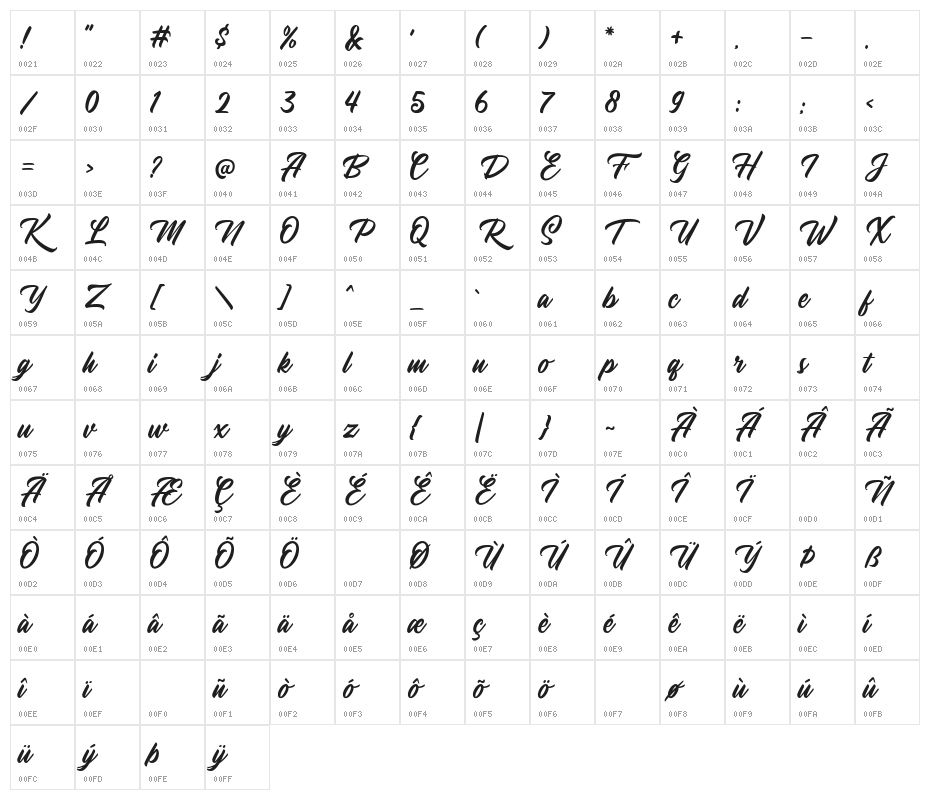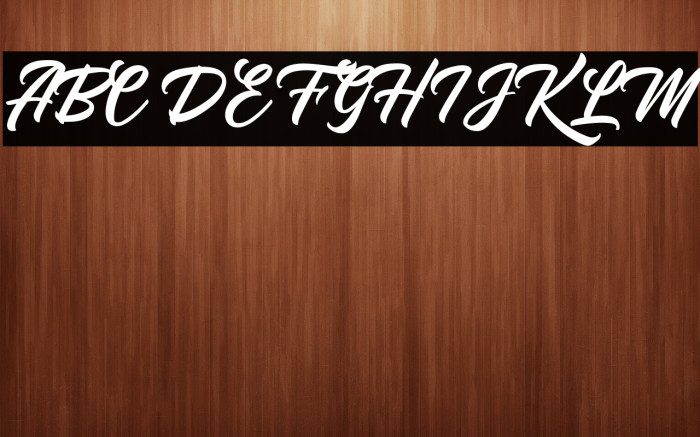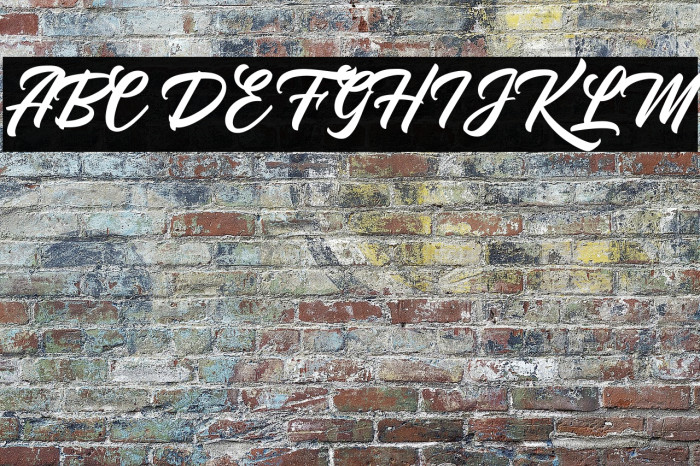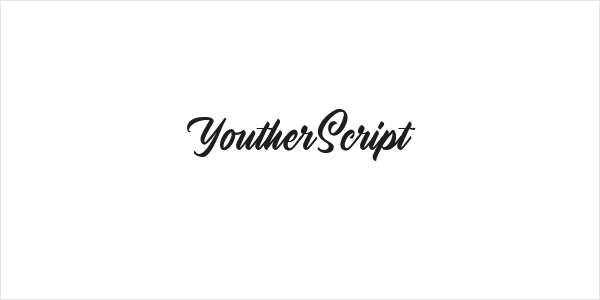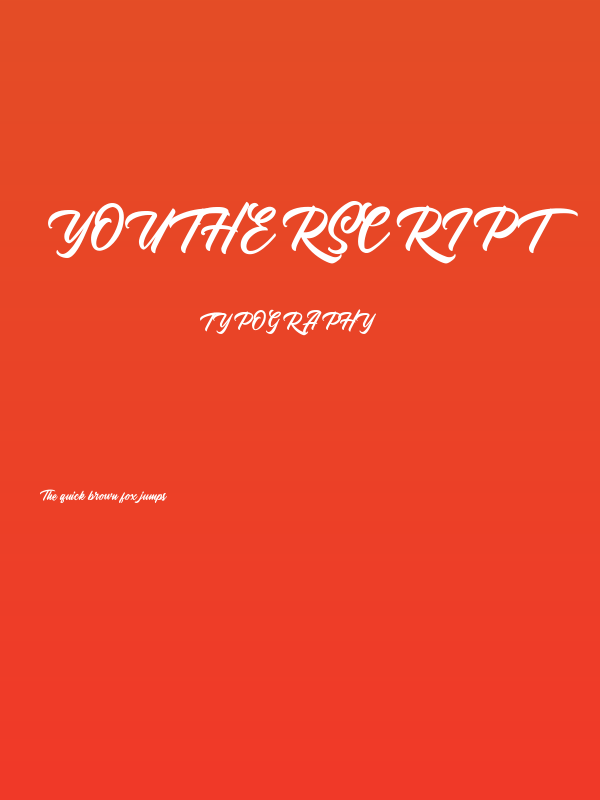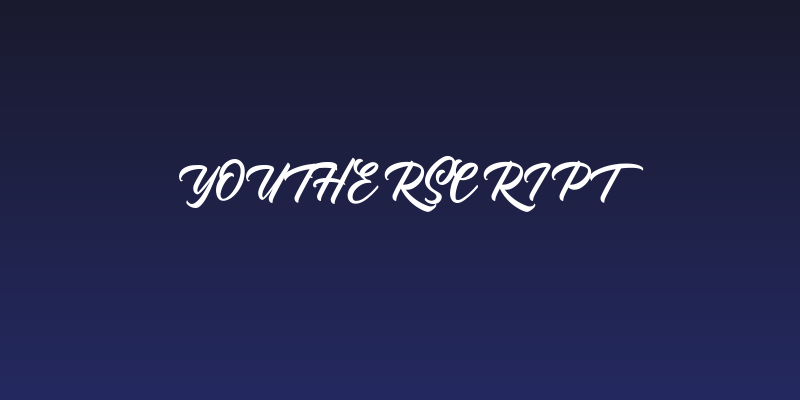
YoutherScript Font
YoutherScript Description
This font features a dynamic and fluid script style, characterized by its elegant, flowing curves and smooth connections between letters. The uppercase letters are bold and expressive, with a slight slant that adds a sense of motion and grace. The lowercase letters maintain a consistent style, with rounded forms and a harmonious balance between thick and thin strokes. Numbers are equally stylized, ensuring a cohesive look across all characters. The special characters are thoughtfully designed to match the overall aesthetic, making this font suitable for a variety of creative applications.
| Use Case | Logos, Invitations, Branding |
| Proposed Projects | Ideal for wedding invitations, greeting cards, branding projects, and elegant logos. |